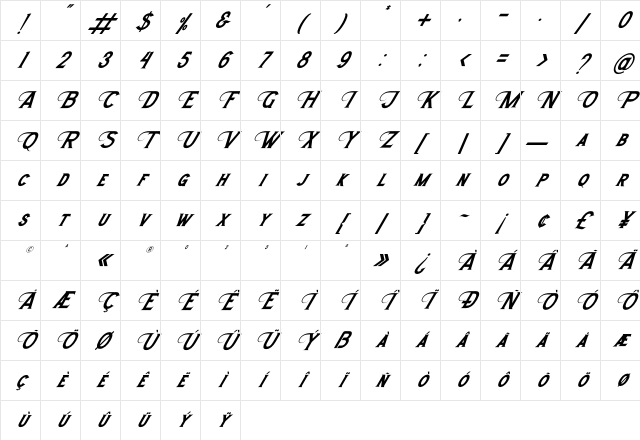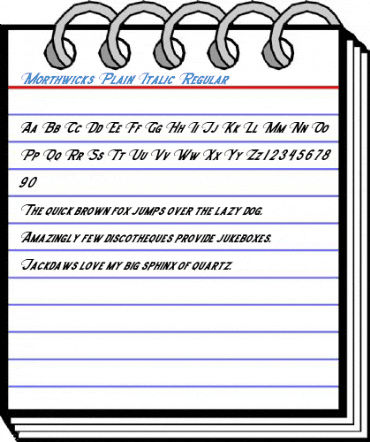
Complete Morthwicks Plain Italic Regular glyph index. Displaying only characters natively supported by Morthwicks Plain Italic Regular font.
Morthwicks Plain Italic is a composed and adaptable typeface that performs quietly and consistently across a wide range of design contexts. The slanted form adds forward momentum and visual energy.
Pro Tip: Use Morthwicks Plain Italic for emphasis, pull quotes, and subheadings where its slanted energy can add rhythm to the layout.